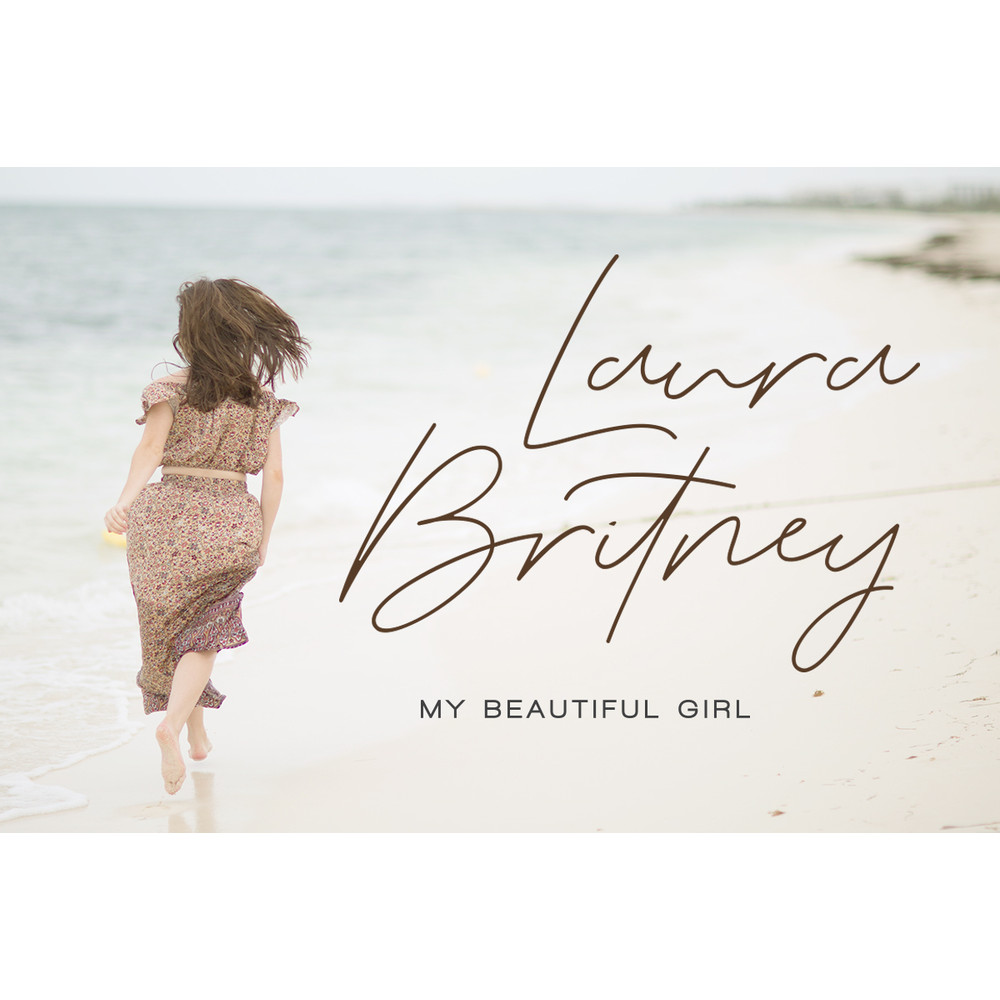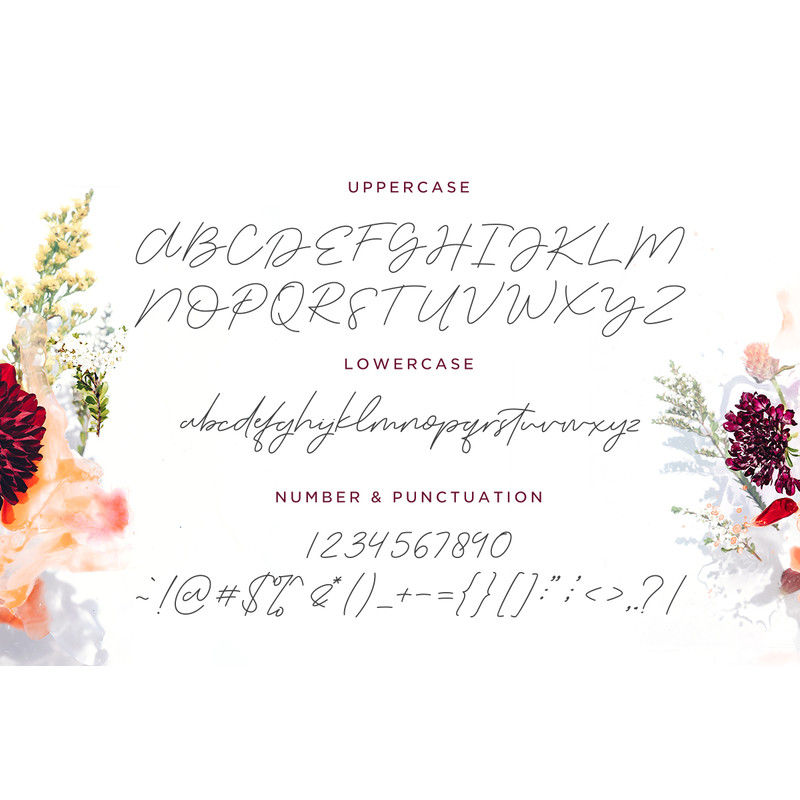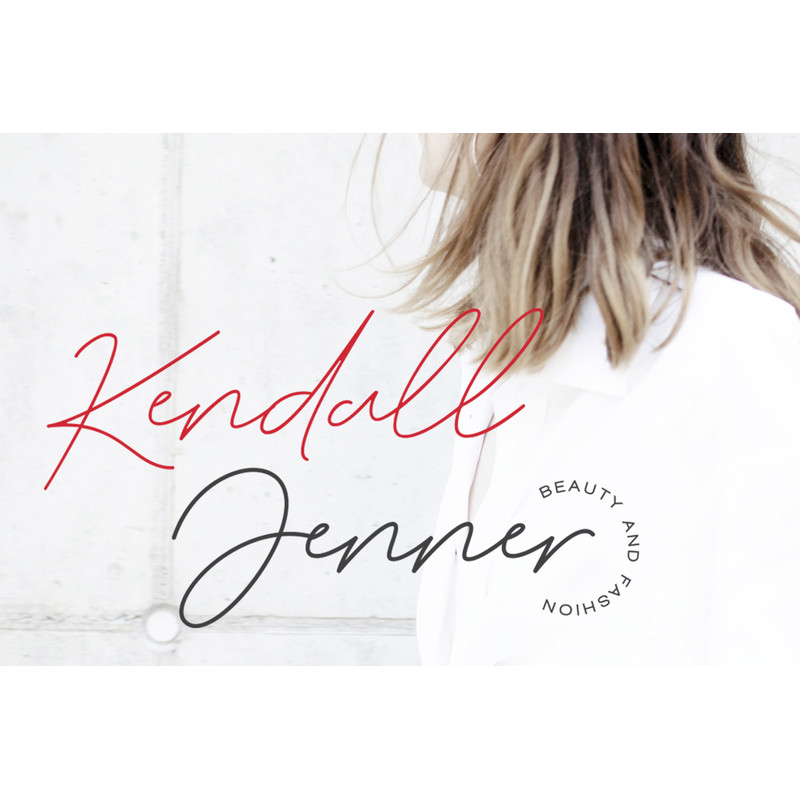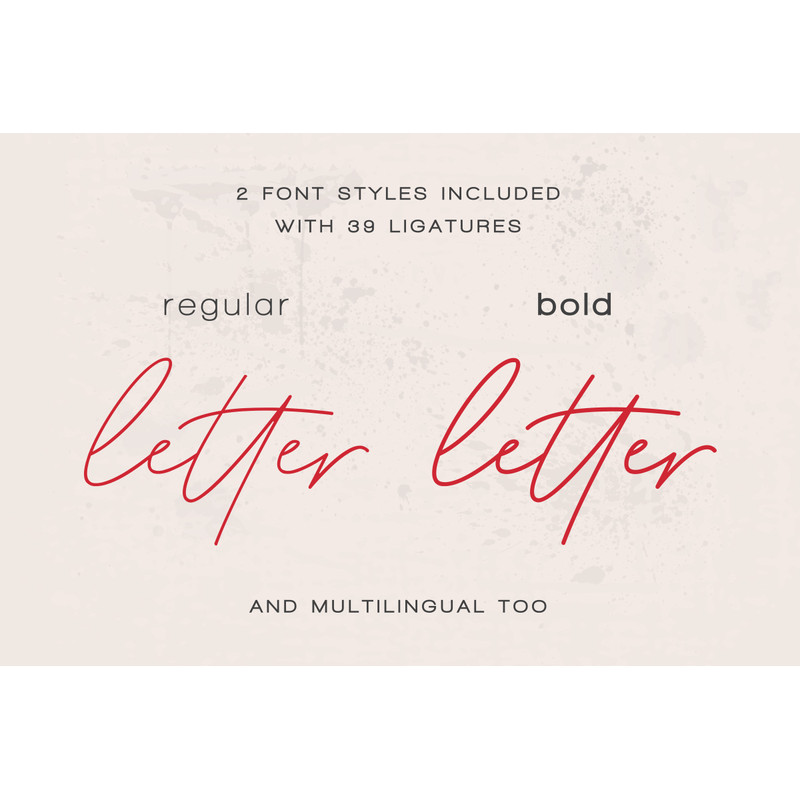
Serenity a natural signature style font, loaded with awesome opentype features, including 39 natural looking ligatures, bold family, as well as a full alternate upper and lowercase character set and multilingual too.
This font will perfect for many different project ex: logo, blogging, quotes, branding, fashion, apparel, photography, watermark, header, poster, wedding, letter, invitation, stationery, and many more!